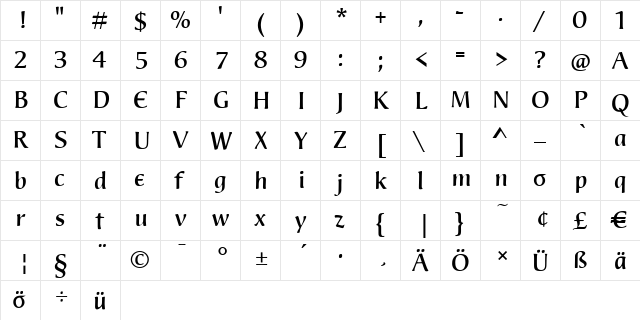
Welcome Y2 Regular
Design Context for Welcome Y2 Typeface
Welcome Y2 takes a measured approach to typography — its balanced proportions and neutral character make it a reliable workhorse for both digital and print work.